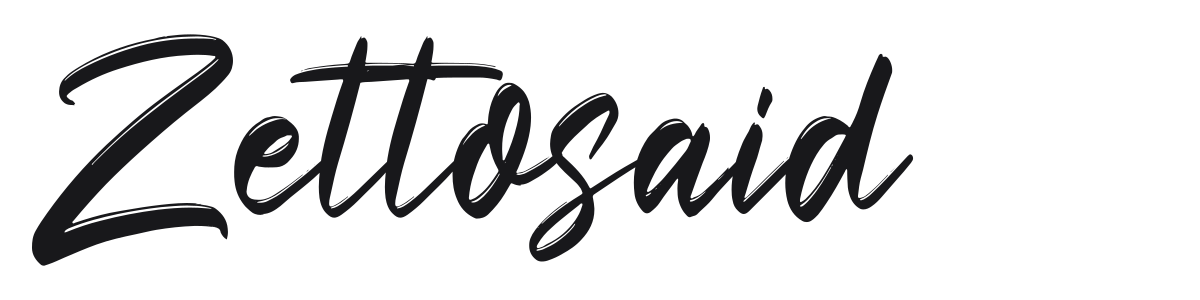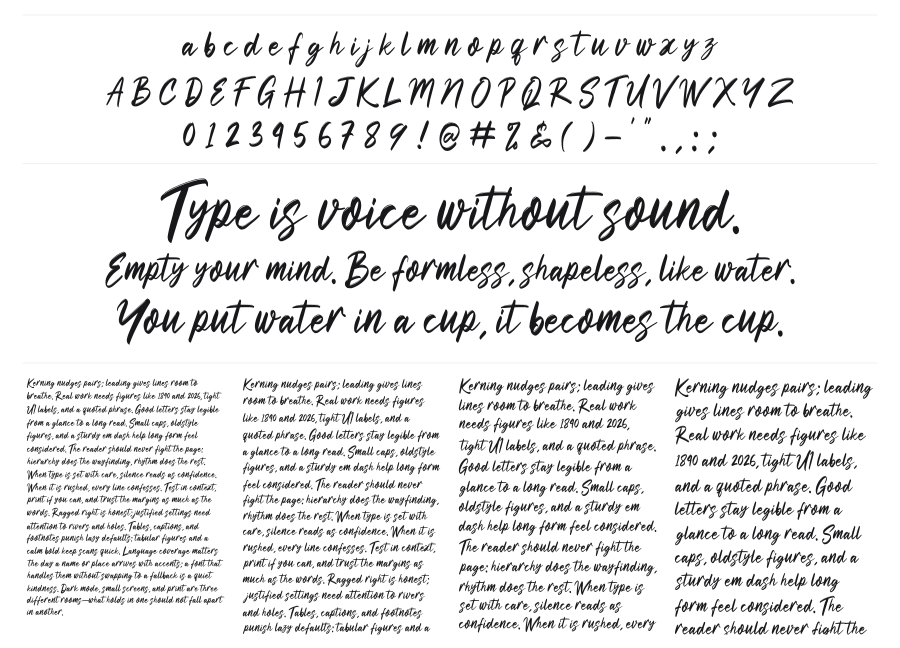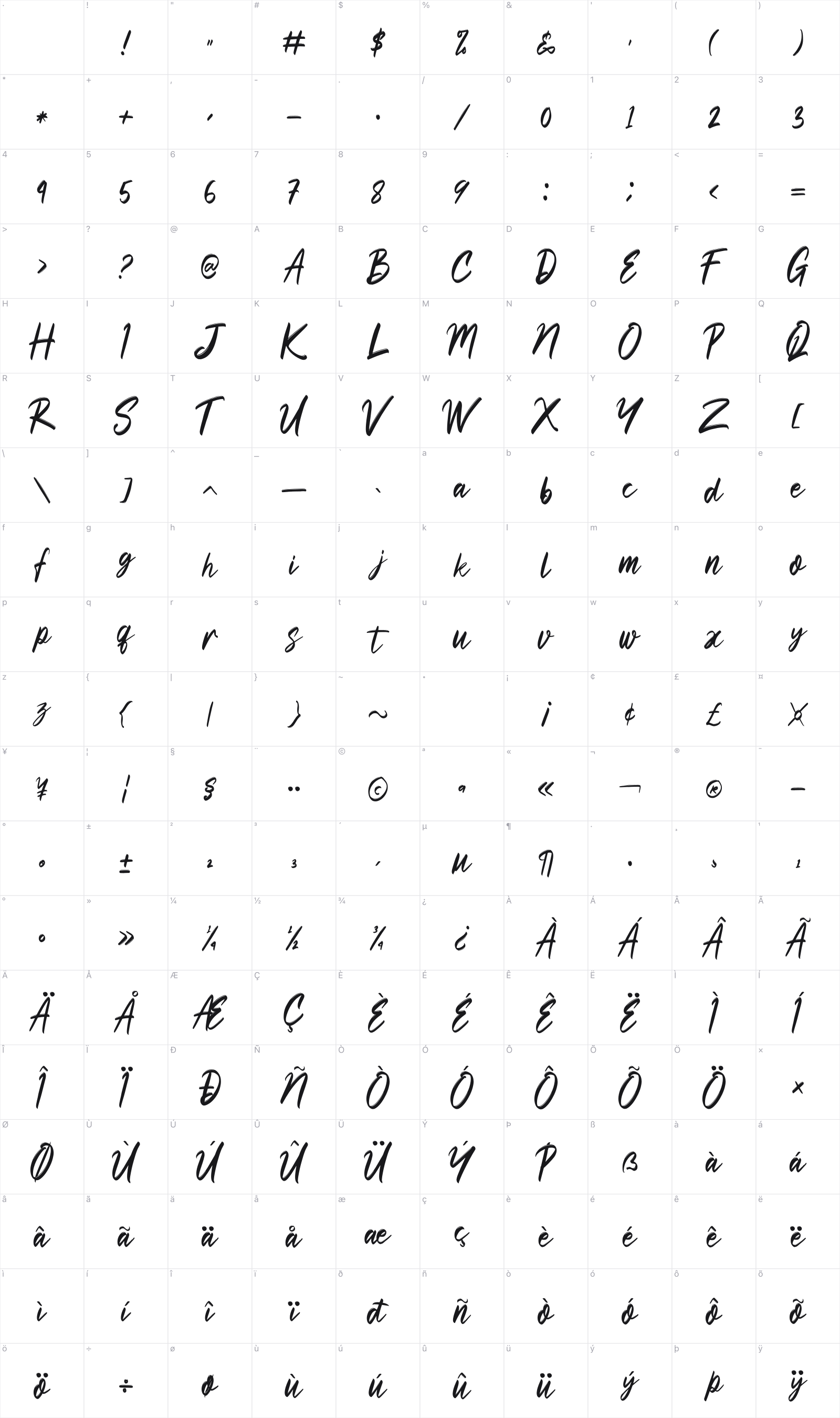
Zettosaid
by Integritype Studio
Zettosaid is a lively casual brush script with expressive ink-style strokes and a bouncing baseline. The thick-to-thin contrast and natural flow give it the feel of something dashed off by hand, but with enough refinement for polished branding work. It carries energy without feeling reckless.